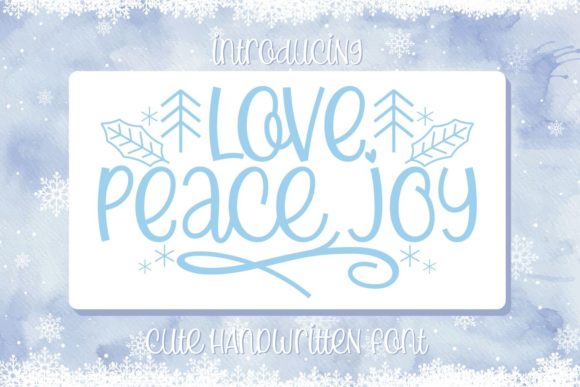
Feast your eyes on Love Peace Joy, a script font family that exudes merriments and warmth, crafted with the utmost care by the talented Rifki (7ntypes).
Picture this: handwritten Christmas card labels adorned with the charming strokes of Love Peace Joy, spreading cheer and goodwill with every letter. Its playful and whimsical curves dance across the page, evoking the magic of the season.
Love Peace Joy is not just another font; it's an expression of love, peace, and joy that will infuse your creations with a touch of the extraordinary. Let your imagination soar as you explore its endless possibilities.
Imagine a world where your designs radiate with childlike wonder and festive spirit. Love Peace Joy will magically transform your Christmas cards, invitations, and even children's books into captivating masterpieces. Its heartwarming essence will bring a smile to the faces of all who behold it.
But wait, there's more! This versatile font isn't confined to the Christmas season alone. Its playful nature lends itself perfectly to any whimsical or light-hearted project.
Give your cartoon designs a delightful twist, let your children's games come alive with an enchanting touch, or add a dash of whimsy to any creation that calls for a dash of magic. Love Peace Joy is your go-to font for spreading happiness and evoking fond memories.
Prepare to be captivated by the infectious charm of Love Peace Joy, a font that embodies the spirit of Christmas and brings joy to every project you undertake. Its ability to transform the ordinary into the extraordinary is simply enchanting.